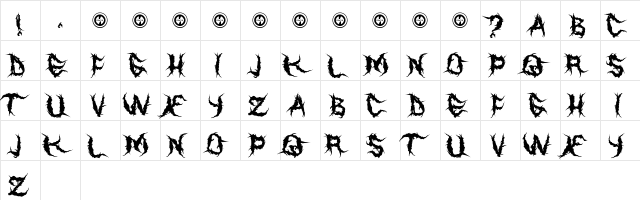
Eater of Children Regular
Design Context for Eater of Children Typeface
Eater of Children has an approachable, lighthearted character — its loose, expressive forms are well-suited to children's content, casual branding, and fun-first design.
Font Pairing: Pairs well with a rounded or humanist sans for body copy, maintaining the friendly tone without relying on Eater of Children to carry extended reading.
Pro Tip: Use Eater of Children at larger display sizes where its expressive character can land. Pair with a clean, simple sans for body copy to maintain readability.